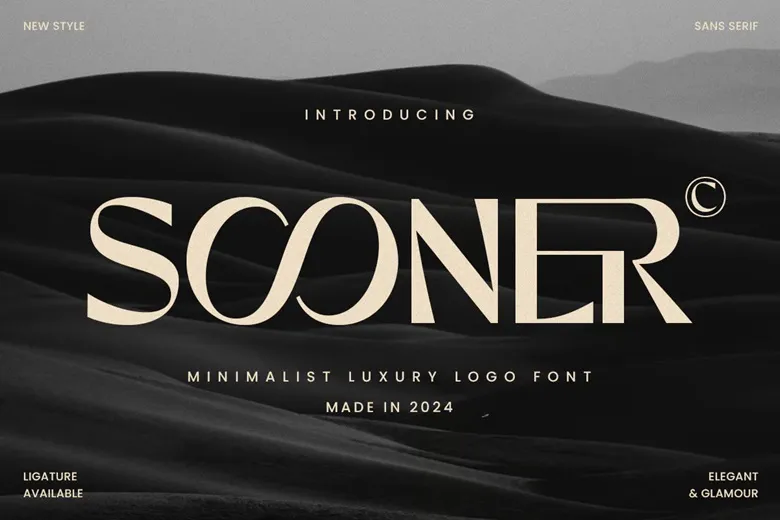
Sooner is a luxury logo font that is represented in a minimalistic style to convey the feeling of elegance. The typeface lacks serifs and has quite a minimalistic design which makes it perfect for use in luxury brands, contemporary logos and high end publications. To make your brand look modern and yet classic, Sooner has been designed with elegance and minimalism in mind.